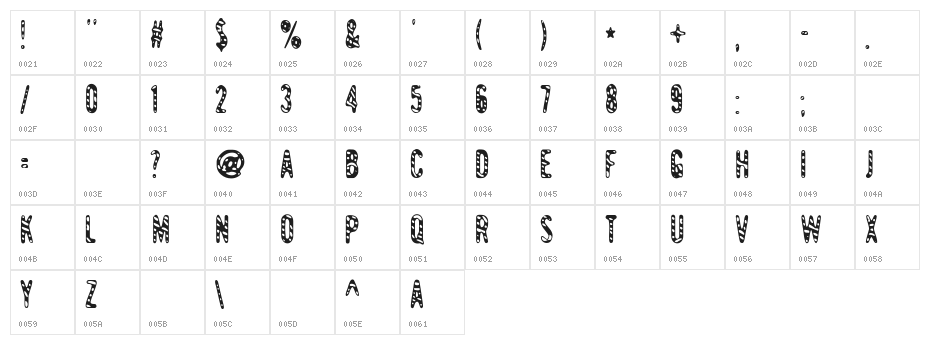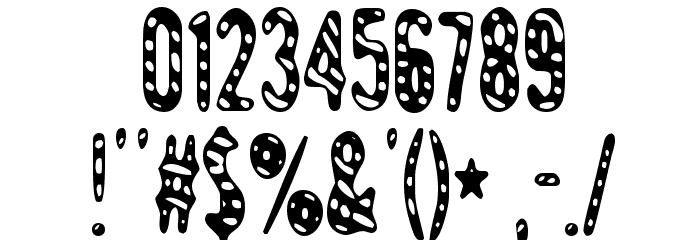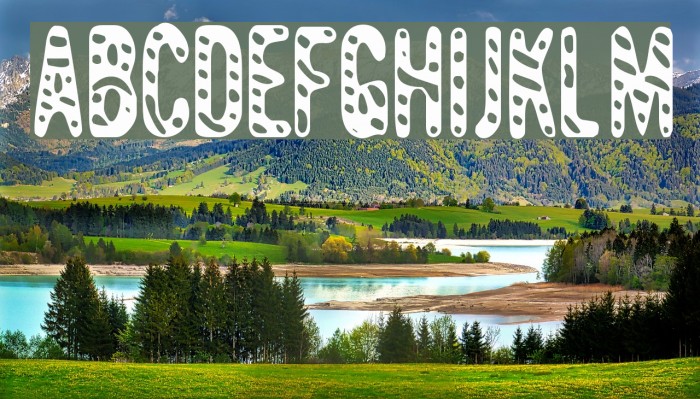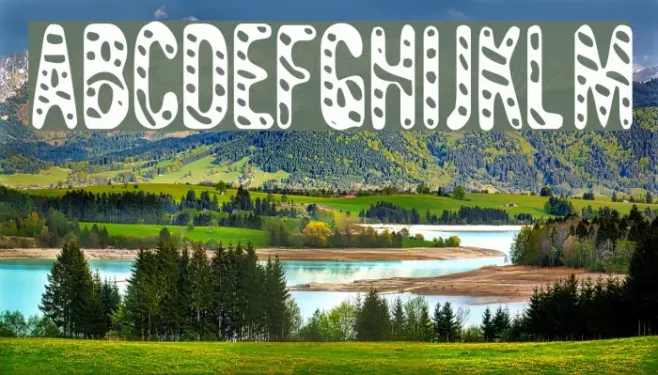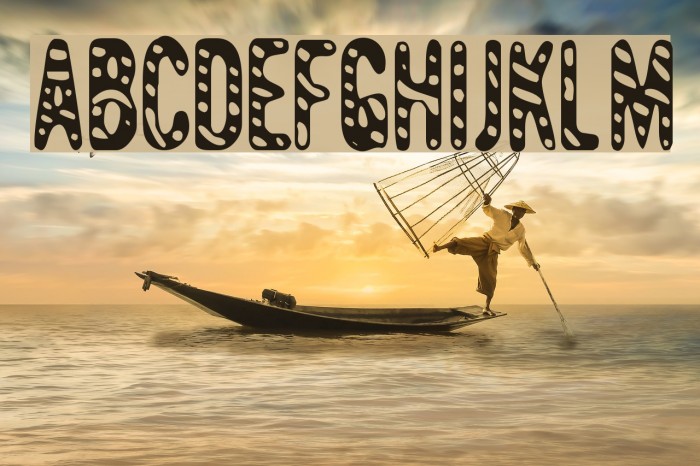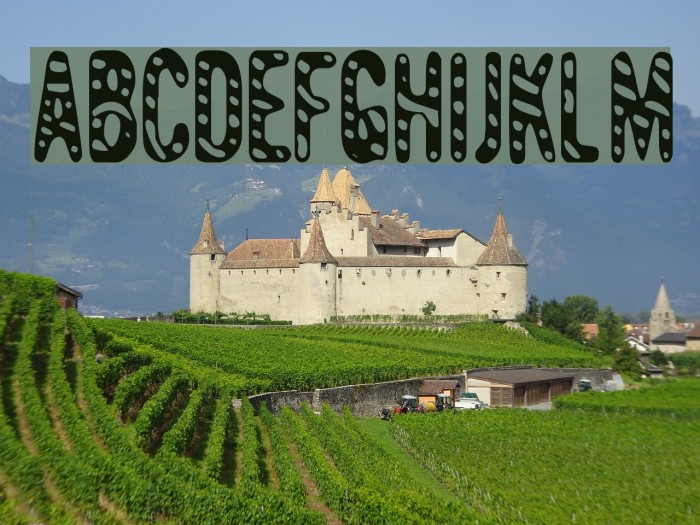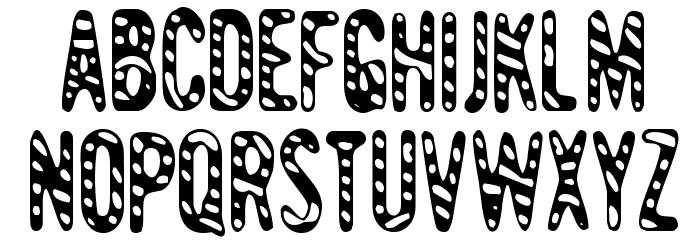
GiantTigers Font
GiantTigers Description
This font features a playful and bold design with a unique polka dot pattern within each character. The letters are uppercase and lowercase, with numbers and special characters included. The style is highly decorative, making it stand out with its whimsical and eye-catching appearance. The characters are rounded and have a consistent thickness, contributing to a cohesive look. The polka dots vary in size, adding a dynamic and lively feel to the overall design. This font is perfect for projects that require a fun and engaging typeface.